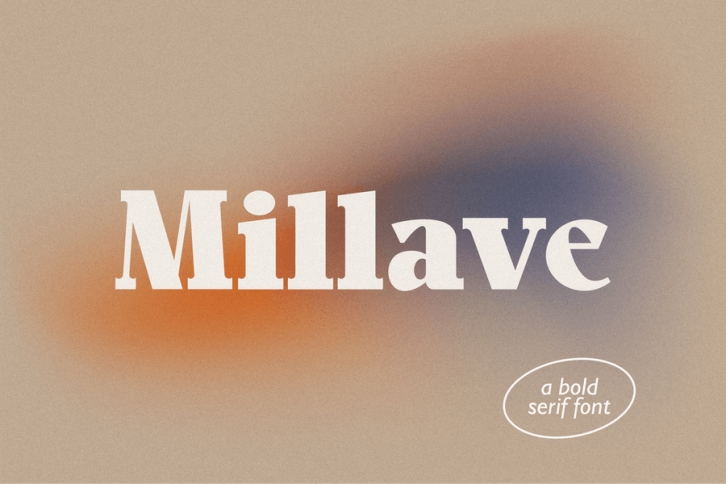
Millave is serif font with bold characters, looks luxurious and cool for design. Designed for the business segment, clothing, apparel, poster design, headlines and others.
• Uppercase and Lowercase
• Numeral
• Punctuation
• Symbol
• Ligatures fi fj fk fl fh fb ff